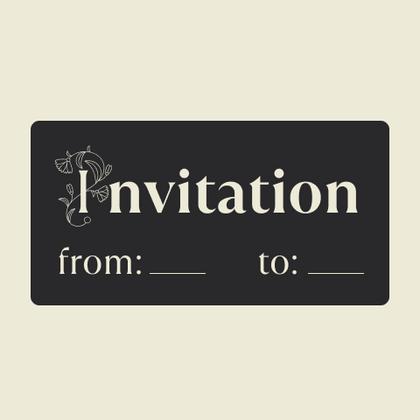
Invitations Fonts
Memorable invitations demand typography that reflects the significance of the event. Invitation fonts are meticulously designed to balance decorative beauty with readability, ensuring every detail contributes to a refined aesthetic. The TypeType collection includes both timeless options with flowing flourishes and modern interpretations tailored for weddings, corporate celebrations, and special occasions. Each font is developed to complement intricate print techniques while maintaining legibility.
TT Polihaus is an experimental sans serif that, at first glance, looks ordinary, but then breaks apart, transforming into a stencil pattern.
TT Odellia is an old-style serif with a modern design, inspired by Venetian typefaces and classical music.
TT Nooks Serif is a display modern serif with a slight touch of egocentricity. It has a sharp and firm, yet elegant and stately character.
TT Nooks Script features a unique design that has no direct analogs.
TT Bells combines the elegant softness of Antiqua with a complex and daring temper reflected in straight stroke terminals and arrowheaded serifs. The typeface is based on the broad nib, which creates these hallmark terminals and serifs.
TT Ricordi Allegria is a sleek and intelligent contemporary Florentine grotesque.
TT Modernoir is a display sans serif with dynamic proportions. Fluid lines and delicate Art Nouveau forms in this typeface blend seamlessly with the rhythmic flow and improvisational freedom of jazz.
TT Moons is a slim and contrast serif. This font family works especially smart in classic design themes. TT Moons is a typeface of the glyptal modern typeface.
TT Ricordi Greto is an experimental project, inspired by a floor plaque dating from 1423 found in the Basilica di Santa Croce, Florence.
TT Fellows is a humanist sans serif with a mechanical touch.
TT Disruptors is a ductile marker-drawn handwritten typeface. Its design is one-of-a-kind: worn edges, varying stroke thickness, and elongated ascenders and descenders give it a lively, dynamic texture and handcrafted feel. The personality of this font is spirited and emotional, yet warm and soulful.
TT Gentlemens is a dynamic handwritten typeface that combines the seriousness and precision in writing with elegance and sophistication. It has the character and style of a true gentleman: restrained and always appropriate, yet confident and striking.
TT Ramillas is a contemporary serif with editorial versatility. It features decorative styles and ornamental initials with floral motifs.
TT Gertika is a geometric sans serif with a dynamic character and a dancing rhythm. This font`s idea originates from the lettering featured on an American poster from the late 1930s.
TT Biersal is a display sans serif with a free-spirited, playful, and adventurous nature. The concept of this font was sparked by a German poster from the early 1930s.
TT Cometus is an expressive typeface that captivates from the first time.
TT Globs is the first font from the TypeType Starter Kit line.
TT Ricks is a flamboyant elzevir-type serif, for which the words “cute” or “calm” are not a fitting definition.